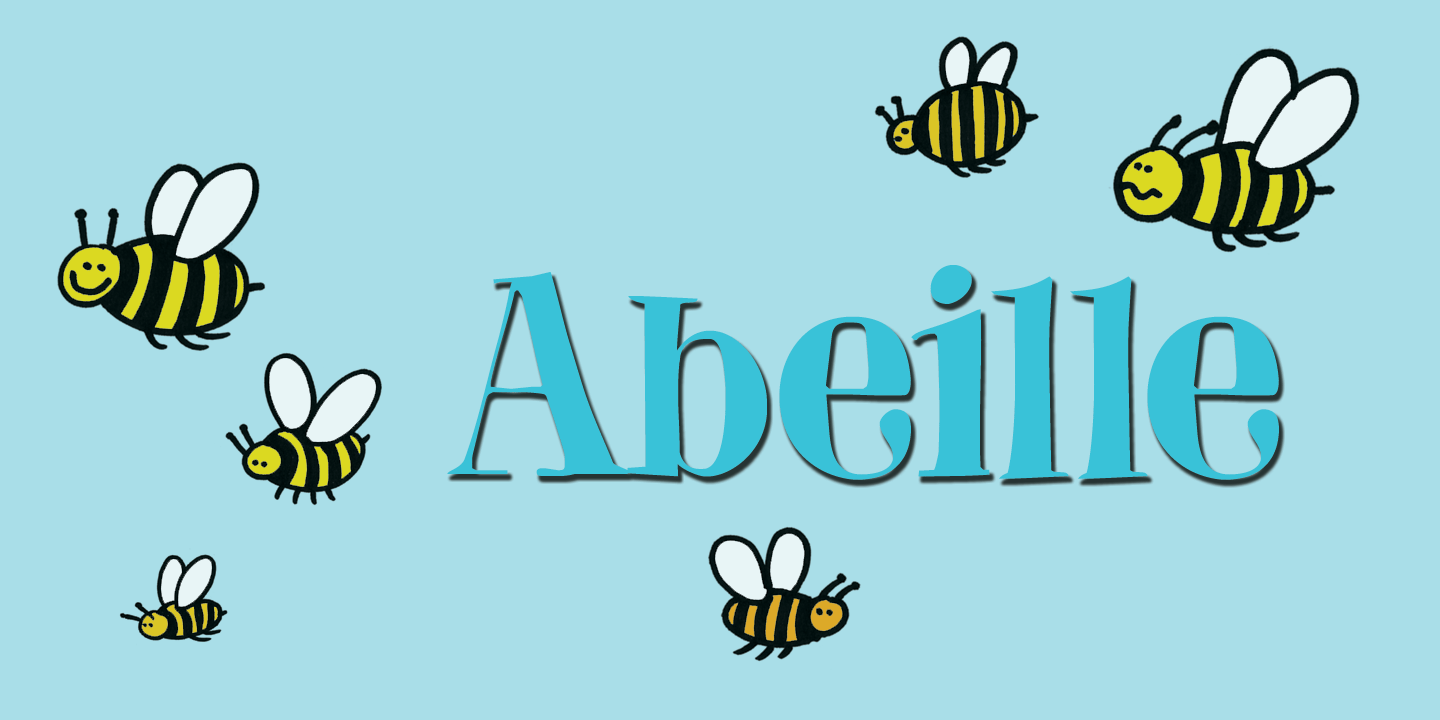
Abeille
Abeille means bee in French. I am a little worried about the world's bee populations, as whole colonies collapse due to monoculture and pesticides. I have planted many bee-attracting plants in my garden and even put up a 'bee hotel' (which is full of tenants right now).
Abeille is a hand drawn didone-ish font, kind of cute and happy, very legible and full of character. Abeille comes with a swarm of diacritics.